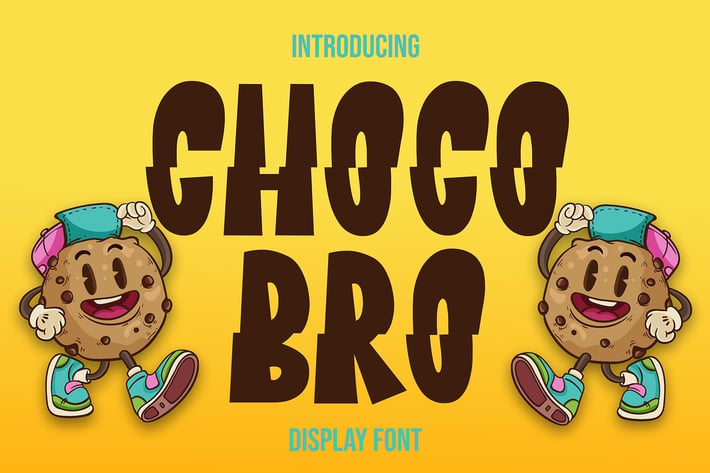
Choco Bro - Fun and Distorted font
Choco Bro isn't just a font; it's a riotous celebration of fun and distortion, an irreverent journey into the world of bold, playful design. This display font, with its dynamic and whimsical lettering, defies conventions and unleashes a burst of creative energy. Every curve and contour exudes a sense of mischief, turning each character into a visual spectacle.
With Choco Bro, words transform into an animated dance, breaking free from the mundane and embracing the joy of creative chaos. Whether you're concocting eye-catching headlines, crafting standout logos, or infusing a touch of whimsy into your designs, Choco Bro is the spirited accomplice that turns every project into a vibrant, unforgettable experience. Embrace the distortion, and celebrate the fun—Choco Bro is here to inject your typography with an exuberant and unrestrained spirit.